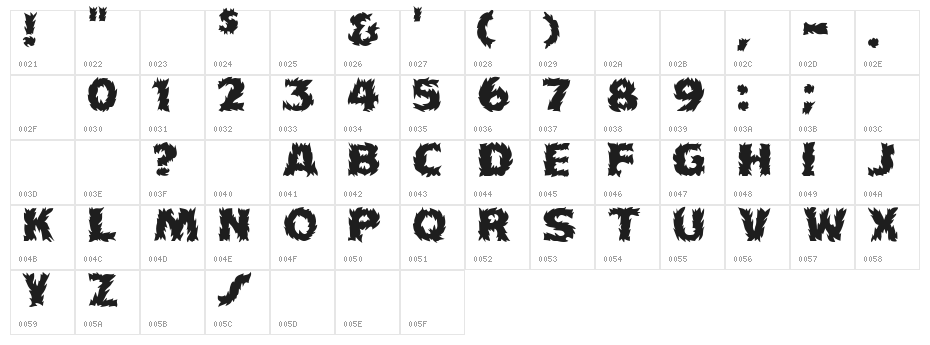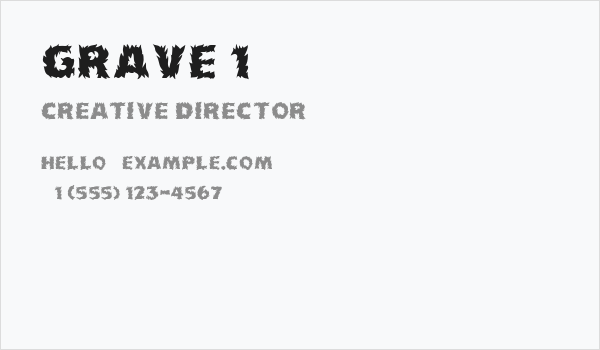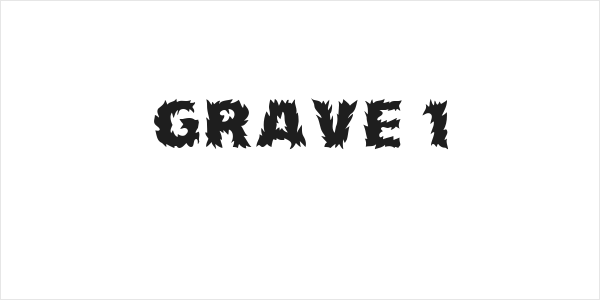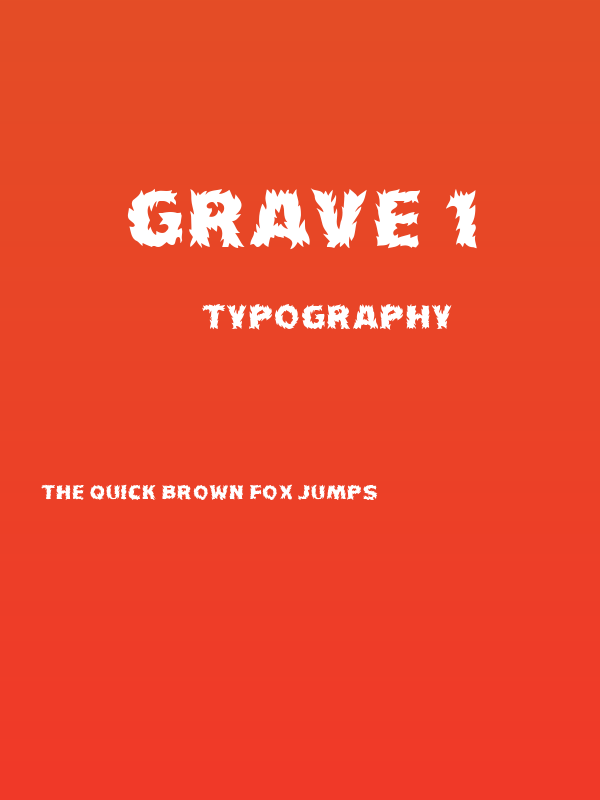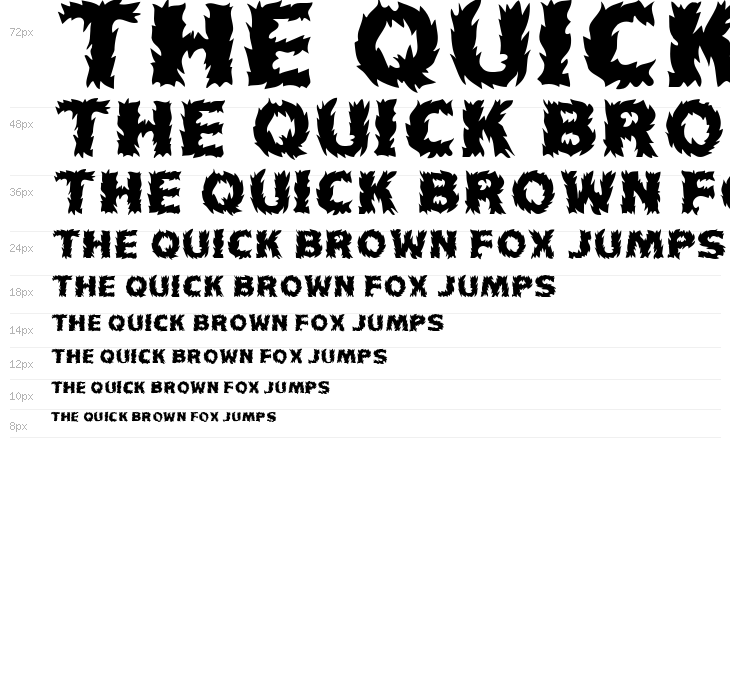
Grave 1 Font
Grave 1 Description
This font features a bold, jagged design that resembles torn or shredded paper, giving it a dynamic and edgy appearance. The characters are highly stylized with irregular edges, creating a sense of movement and energy. This distinctive style is particularly eye-catching and can evoke a sense of chaos or intensity. The font's unique aesthetic makes it suitable for projects that require a dramatic or unconventional look. Its boldness ensures that it stands out in any design, making it ideal for attention-grabbing headlines or titles.
| Proposed Projects | Ideal for horror-themed posters, edgy branding, Halloween invitations, or any project needing a dramatic flair. |